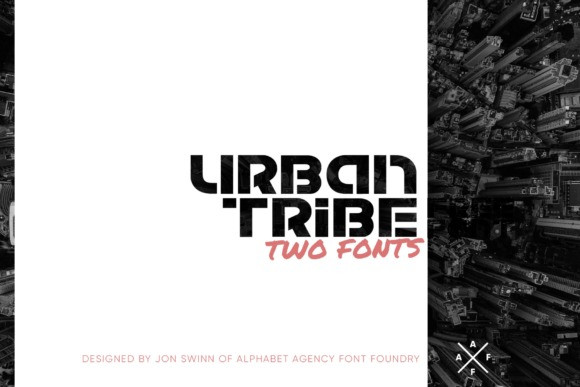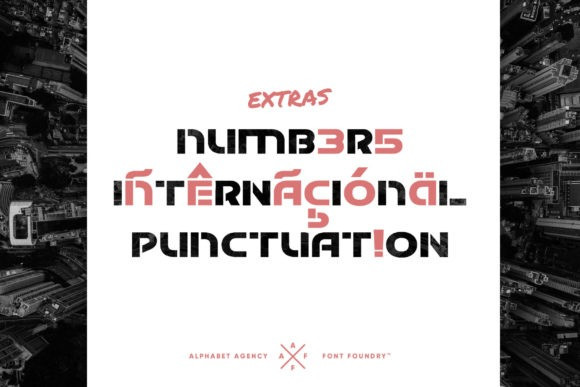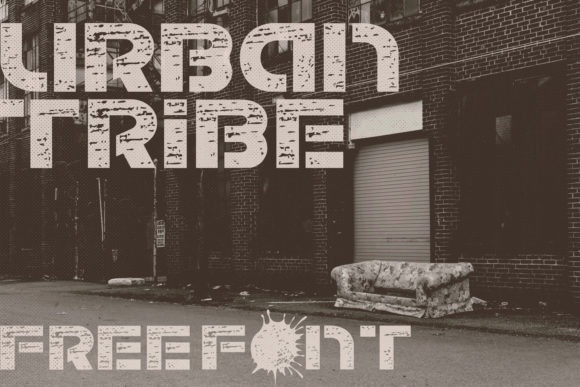
Urban Tribe Font
Urban Tribe is a cool, bold and robotic display font. This font is ideal for writing web designs, business cards, or pretty much anything else that requires a modern and assertive touch.